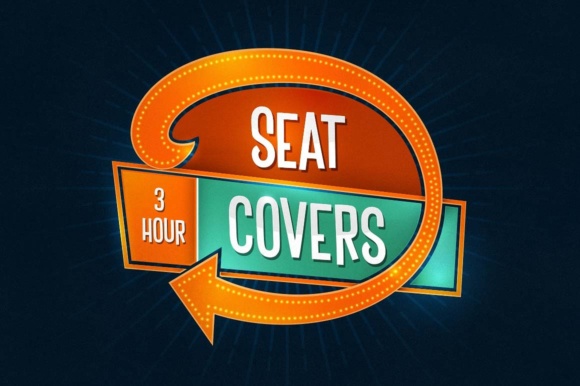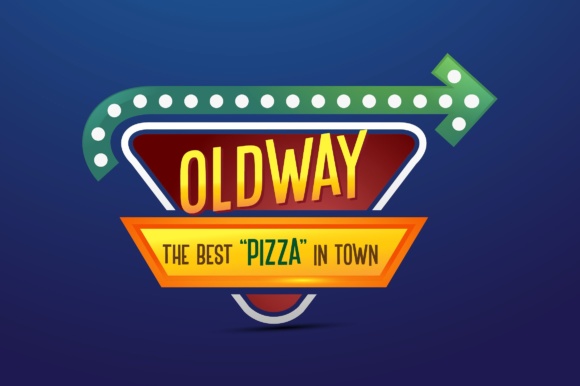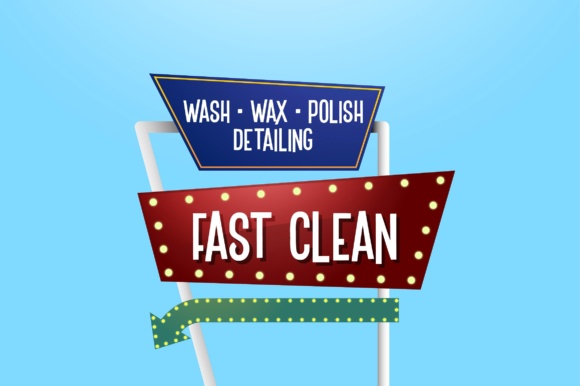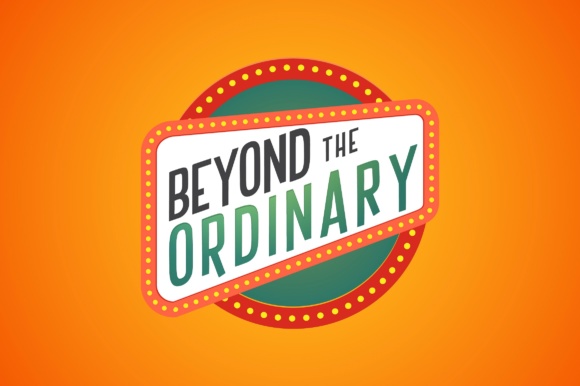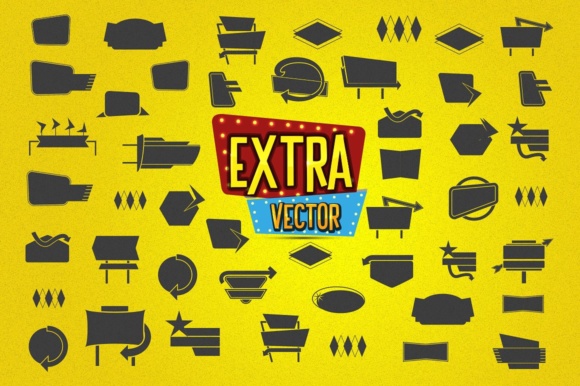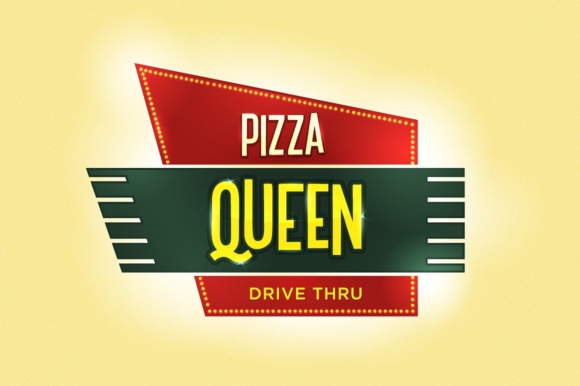
Introducing Enlighten Font: A Nostalgic Display Font Inspired by 1960’s Neon Signage
Are you a designer or crafter looking for a unique and eye-catching font to add to your collection? Look no further than Enlighten Font, a display font inspired by the classic neon signage of the 1960s. With its bouncy baseline and flexibility, this font is perfect for a variety of design projects, from retro-style posters to modern branding materials.
The Concept Behind Enlighten Font
The concept for Enlighten Font was based on the iconic neon signage of the 1960s, a era known for its bold and colorful visual style. The font’s design takes cues from the classic neon signs that lit up the streets of cities around the world, with their characteristic bouncy and irregular shapes. This nostalgic inspiration gives Enlighten Font a unique and playful personality that’s sure to grab attention.
What Makes Enlighten Font Special
Enlighten Font has several features that make it stand out from other display fonts. Its bouncy baseline gives it a dynamic and energetic feel, while its flexibility allows it to be used in a variety of design contexts. Whether you’re looking to create a retro-style poster, a modern logo, or a set of eye-catching social media graphics, Enlighten Font is up to the task.
Key Features of Enlighten Font
- Inspired by 1960s neon signage: Enlighten Font takes its cues from the classic neon signs of the 1960s, giving it a unique and nostalgic personality.
- Bouncy baseline: The font’s bouncy baseline gives it a dynamic and energetic feel, perfect for grabbing attention.
- Flexible design: Enlighten Font can be used in a variety of design contexts, from retro-style posters to modern branding materials.
- Tons of potential: With its unique personality and flexibility, Enlighten Font has tons of potential for creative design projects.
Using Enlighten Font in Your Design Projects
So how can you use Enlighten Font in your design projects? Here are a few ideas to get you started:
- Retro-style posters: Use Enlighten Font to create eye-catching posters with a retro vibe.
- Modern branding materials: Add a touch of nostalgia to your modern branding materials with Enlighten Font.
- Social media graphics: Use Enlighten Font to create eye-catching social media graphics that stand out from the crowd.
- Crafting projects: Add a personal touch to your crafting projects with Enlighten Font, perfect for making handmade cards, gift tags, and more.
Enlighten Font is a unique and eye-catching display font inspired by the classic neon signage of the 1960s. With its bouncy baseline and flexibility, this font is perfect for designers and crafters looking to add a touch of nostalgia to their design projects. Whether you’re creating retro-style posters, modern branding materials, or social media graphics, Enlighten Font is sure to grab attention. So why wait? Download Enlighten Font today and start adding a touch of neon-inspired style to your design projects!